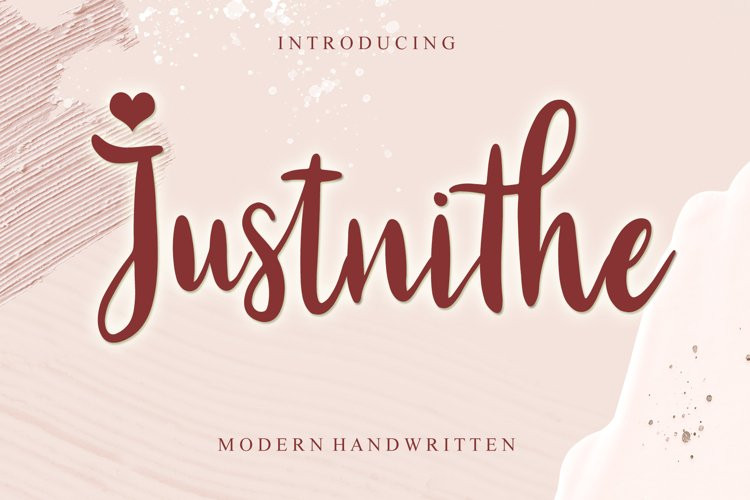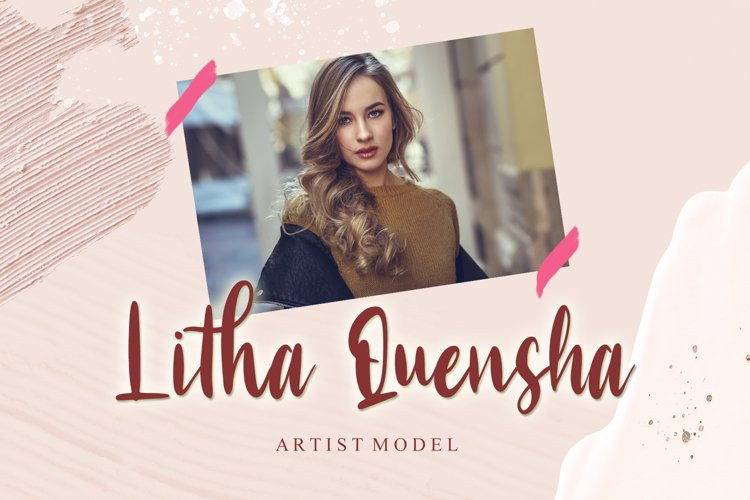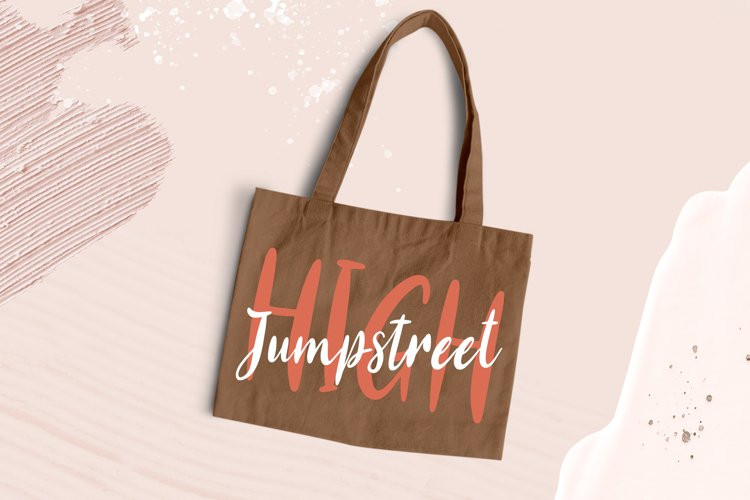
Justnithe Font
Justnithe FontJustnithe is a stylish and incredibly elegant script font. It looks stunning on wedding invitations, thank you cards, quotes, greeting cards, logos, business cards and every other design which needs a handwritten touch.